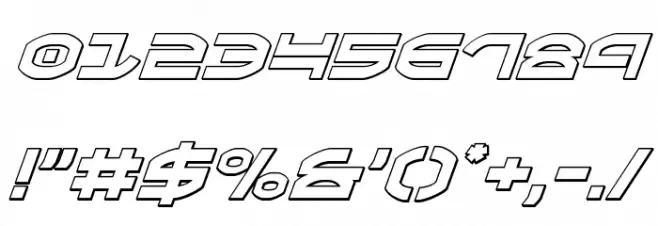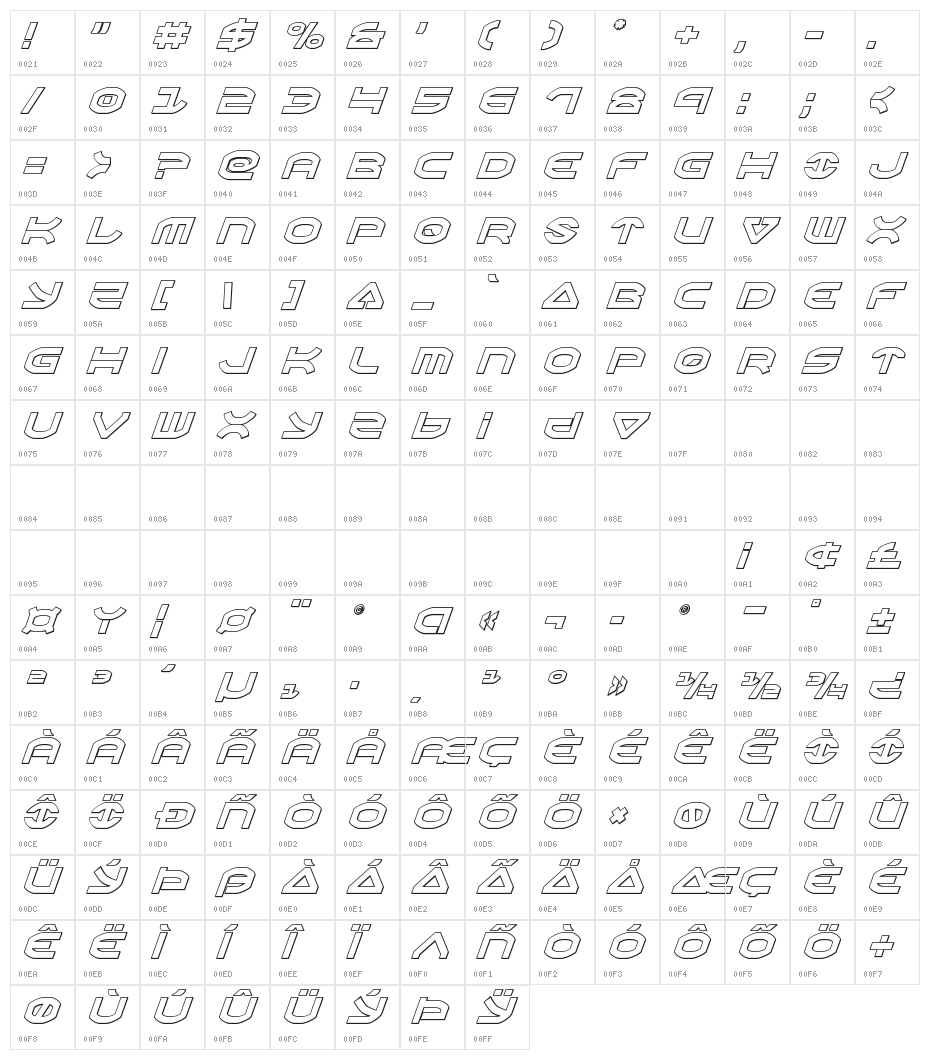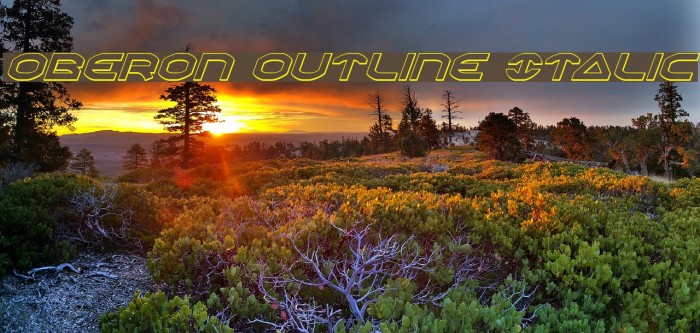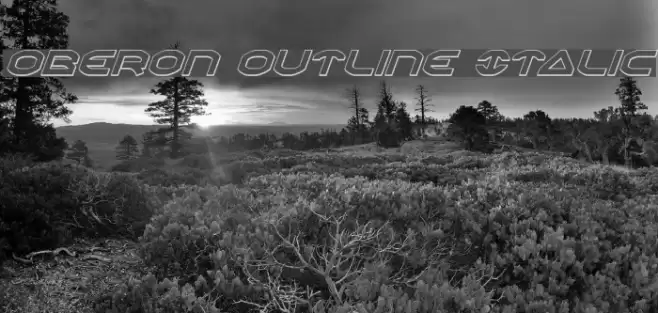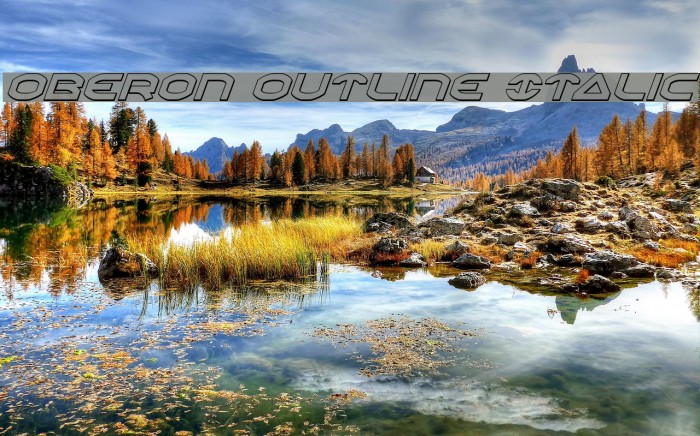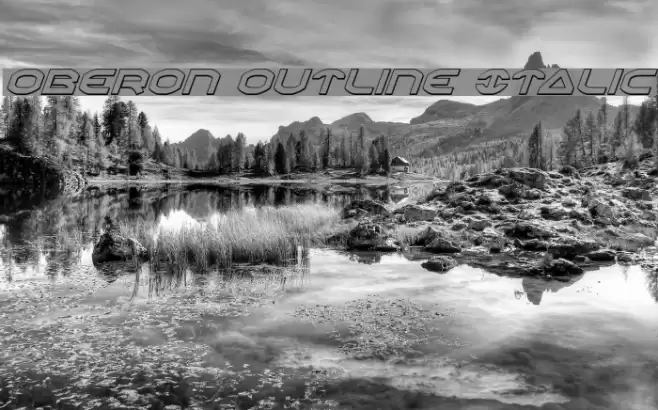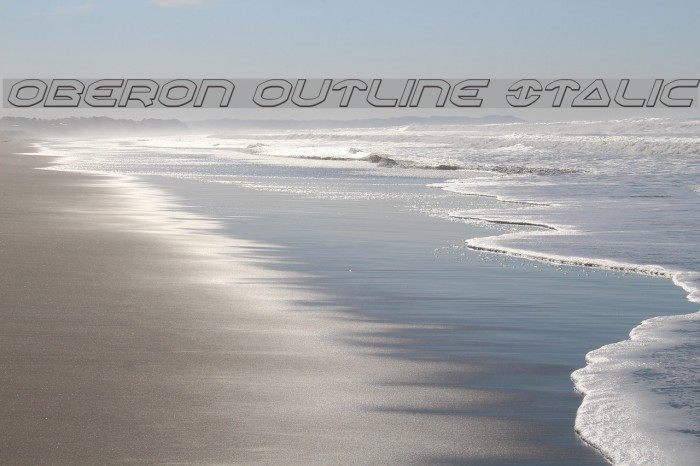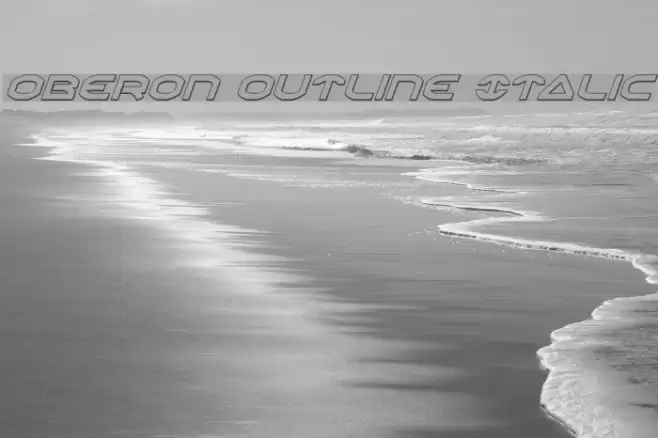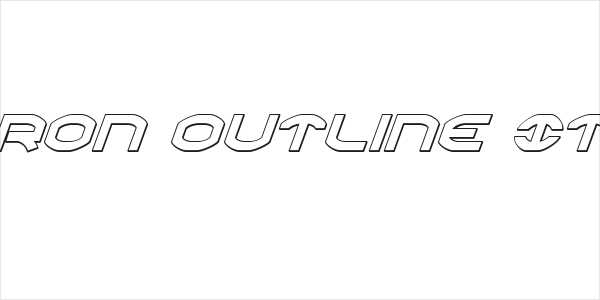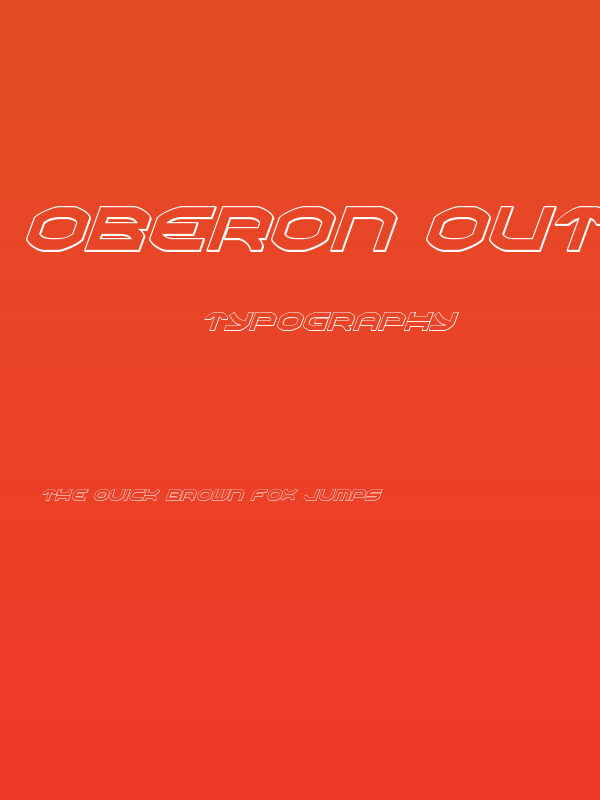
Oberon Outline Italic Font
Oberon Outline Italic Description
This font features a distinct outline style with a futuristic and geometric aesthetic. The characters are italicized, giving them a dynamic and forward-leaning appearance. The uppercase and lowercase letters maintain a consistent design, with sharp angles and clean lines that create a sense of movement. The numbers and special characters follow the same outline style, ensuring uniformity across all glyphs. The font's unique design makes it stand out, ideal for projects that require a modern and edgy look.
| Proposed Projects | Ideal for sci-fi themed designs, tech branding, video game titles, and modern posters. |